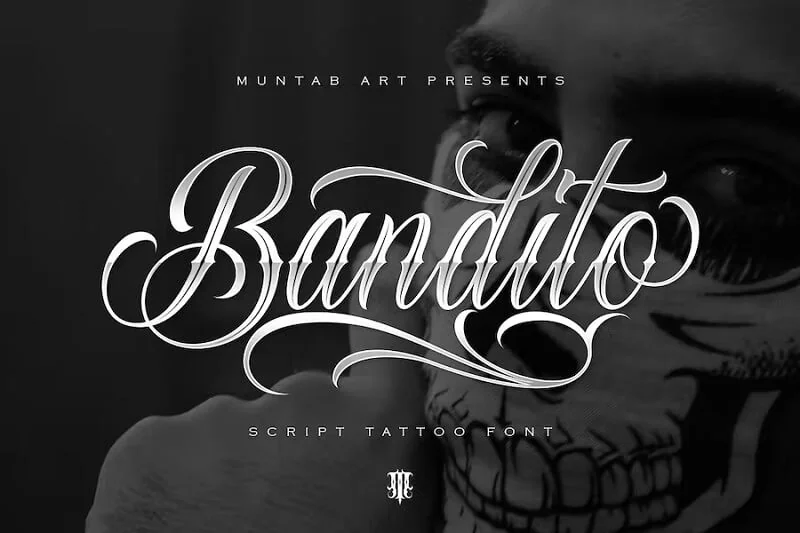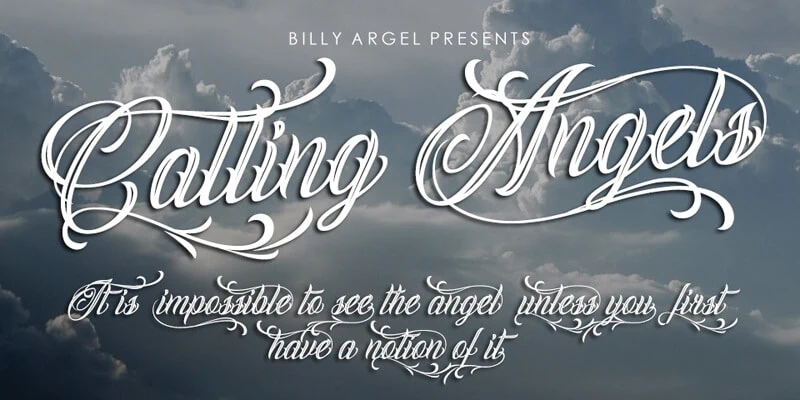
Choosing the perfect tattoo calligraphy font can be challenging. The font you choose will affect how your tattoo looks and what it communicates.
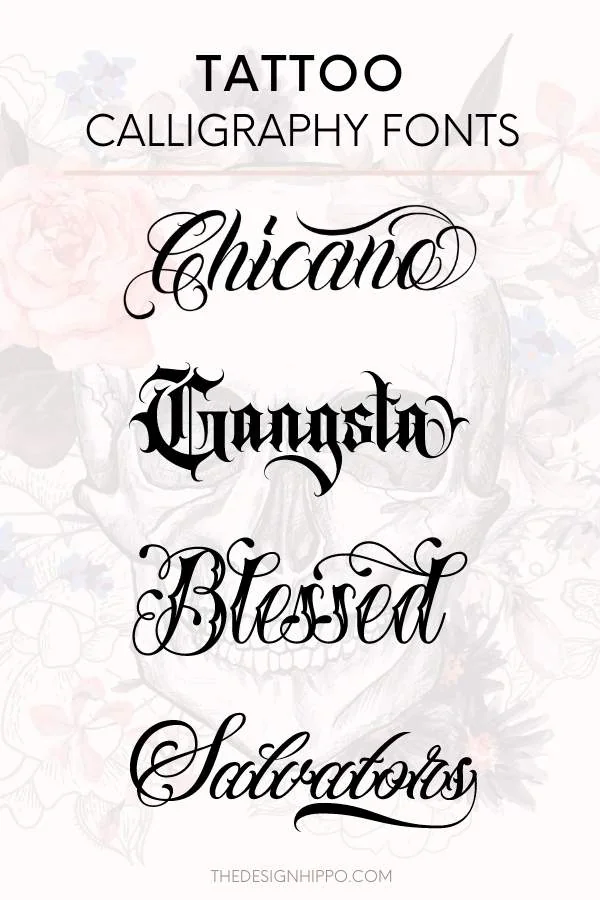
Imagine spending time and money on a tattoo only to discover that the font you selected doesn’t reflect your vision. It’s either too bold, too delicate, illegible, or doesn’t align with your style. This can lead to regret and the need for expensive cover-ups or removal treatments.
In this guide, we’ll look at the best tattoo calligraphy fonts, what we like about them, and how you can incorporate them into your own unique designs.
Best Tattoo Calligraphy Fonts
We’ve tested numerous fonts for calligraphy tattoos, ranking them based on style, detail, and ability to customize. This list includes popular picks among tattoo artists and designers, as well as hidden gems that offer unique aesthetics.
1. Chicano
Best Tattoo Calligraphy Font Overall
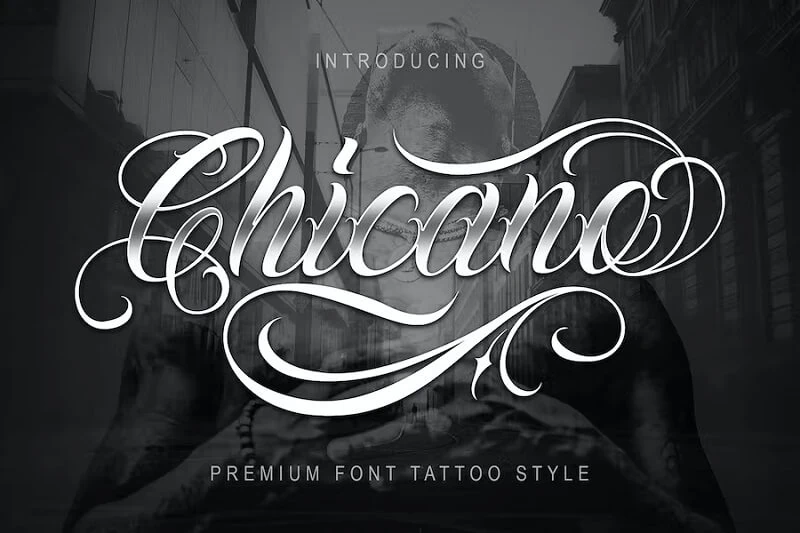
Make beautiful and unique tattoos featuring script lettering using the Chicano font. The font includes elegant uppercase and lowercase letters and ligatures. The swirly swashes are a great way to make your designs stand out.
The flowy letters and stroke contrast create a unique look perfect for tattoo design, signage, logo, and t-shirt designs.
2. Black Ink
Best Blackletter
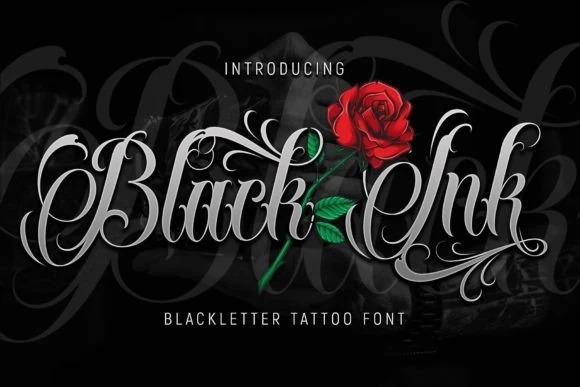
The Black Ink tattoo font features elegant swashes that are perfect for adding a hand-lettered touch to your projects. It’s perfect for creating vintage designs for branding, logos, apparel, and posters.
3. Salvators
Best Script Calligraphy Font for Tattoos
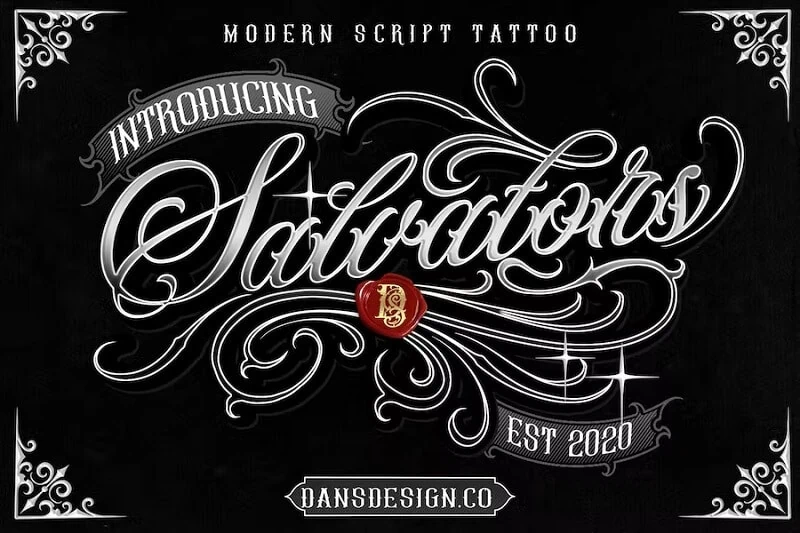
The beautiful Salvators script font will add a touch of elegance and sophistication to your creations. The intricate blackletter calligraphy font features gothic elements that give your invitations, cards, shop signs, and website designs a regal look.
4. Gangsta
Best Gangster Tattoo Calligraphy Font
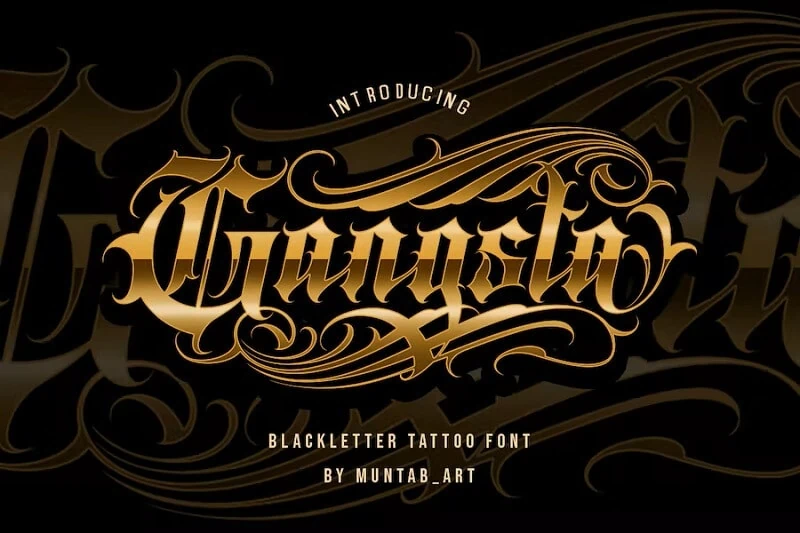
The Gangsta blackletter font features sharp angles, stark stroke contrast, and ornate swashes. It’s perfect for creating bold and edgy designs for gothic-style tattoos for men, logos, branding, posters, and shirts.
5. Blessed
Popular Font for Traditional Tattoos
The Blessed font is perfect for creating classic American tattoos. The detailed letters and sophisticated flourishes lend an old-school look to any personal or commercial design project.
Best Cursive Tattoo Calligraphy Font
Consider the Maldito font if you want a legible font that still leaves a strong impression. It’s a modern take on traditional-style tattoos that’ll help you add a stylish touch to everything from urban typography to logos.
7. Lordish Blackletter
Best for Bold Tattoos
If you want a tattoo font that conveys a sense of majesty and tradition, consider the Lordish Blackletter font. The tall, angular letterforms will lend your designs an old-fashioned charm. The Old English font has three weights – thin, light, and regular so you can use it for everything from headings to quotes.
8. Familia
Best for Fancy Tattoo Calligraphy Lettering
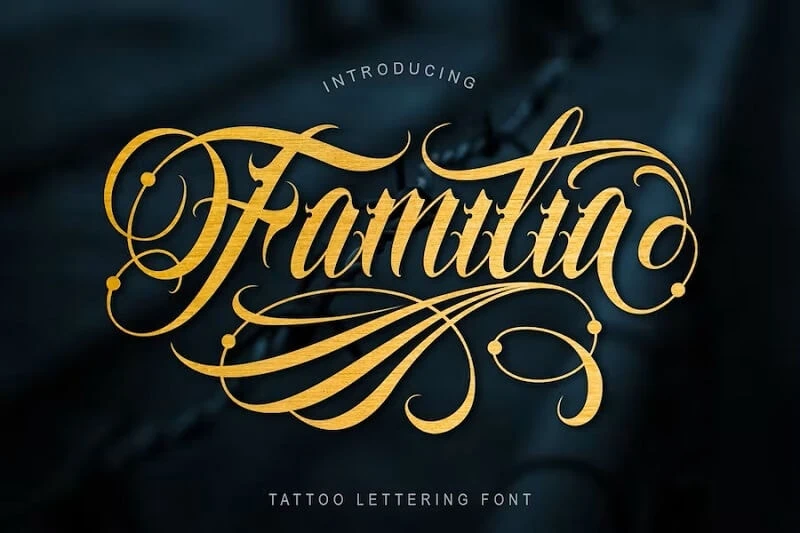
The Familia font is a popular calligraphy lettering font used for creating highly stylized designs. The contrasting stroke widths of the letterforms and the decorative flourishes create a dramatic effect. It’s perfect for designing body art and brand assets for a tattoo studio.
9. Fearless
Best Swirly Tattoo Calligraphy Font
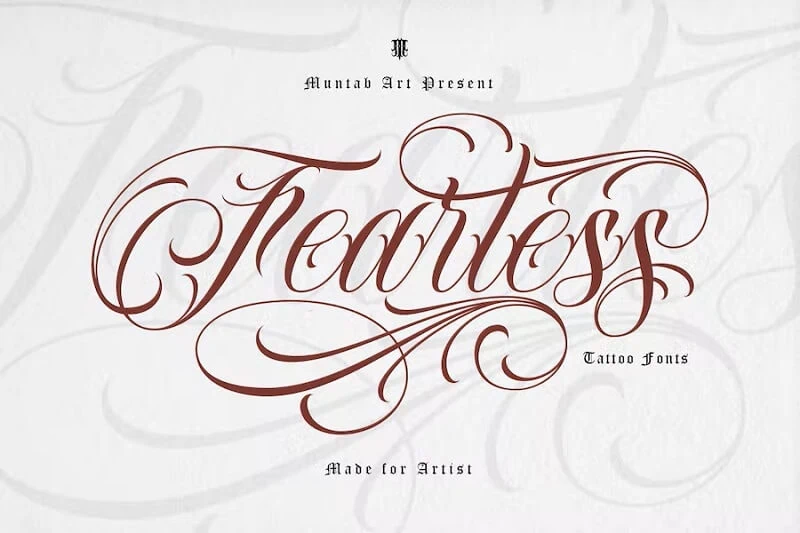
Use the Fearless script font to create everything from name tattoos to typography and tattoo business assets.
The font features thick and thin strokes that meld beautifully to create elegant letterforms. The swashes, alternates, and ligatures included offer you plenty of opportunities for customization.
10. Hustler
Best Chicano Lettering Font
The gangster-style Hustler font features strong curves and distinct serifs to make your designs stand out.
The elaborate and intricate swirls are perfect for creating unique calligraphy. Use it for designing anything that needs to evoke a feeling of strength and resilience.
11. Wildstyle
Best Modern Tattoo Calligraphy Font
Consider the Wildstyle font if you want to make typography or branding assets that masterfully balance the new with the old.
The chicano style font features fancy swashes and smooth letterforms, making it perfect for your script lettering needs.
- Use them for portfolio website headings and social media posts for tattoo artists.
- Create art for invitations, stickers, wall art, and other gifts for tattoo lovers.
How to use tattoo calligraphy fonts in Procreate?
It’s easy to access stylistic alternates in graphic design software such as Adobe Illustrator and Adobe Photoshop.
But if you use Procreate to create tattoo designs or learn lettering on your iPad, you may wonder how to get those special characters.
Use a free online font manager like Fontcloud that makes using glyphs in Procreate a breeze.